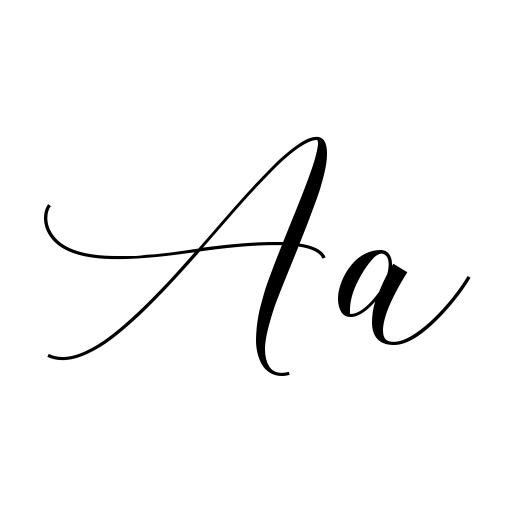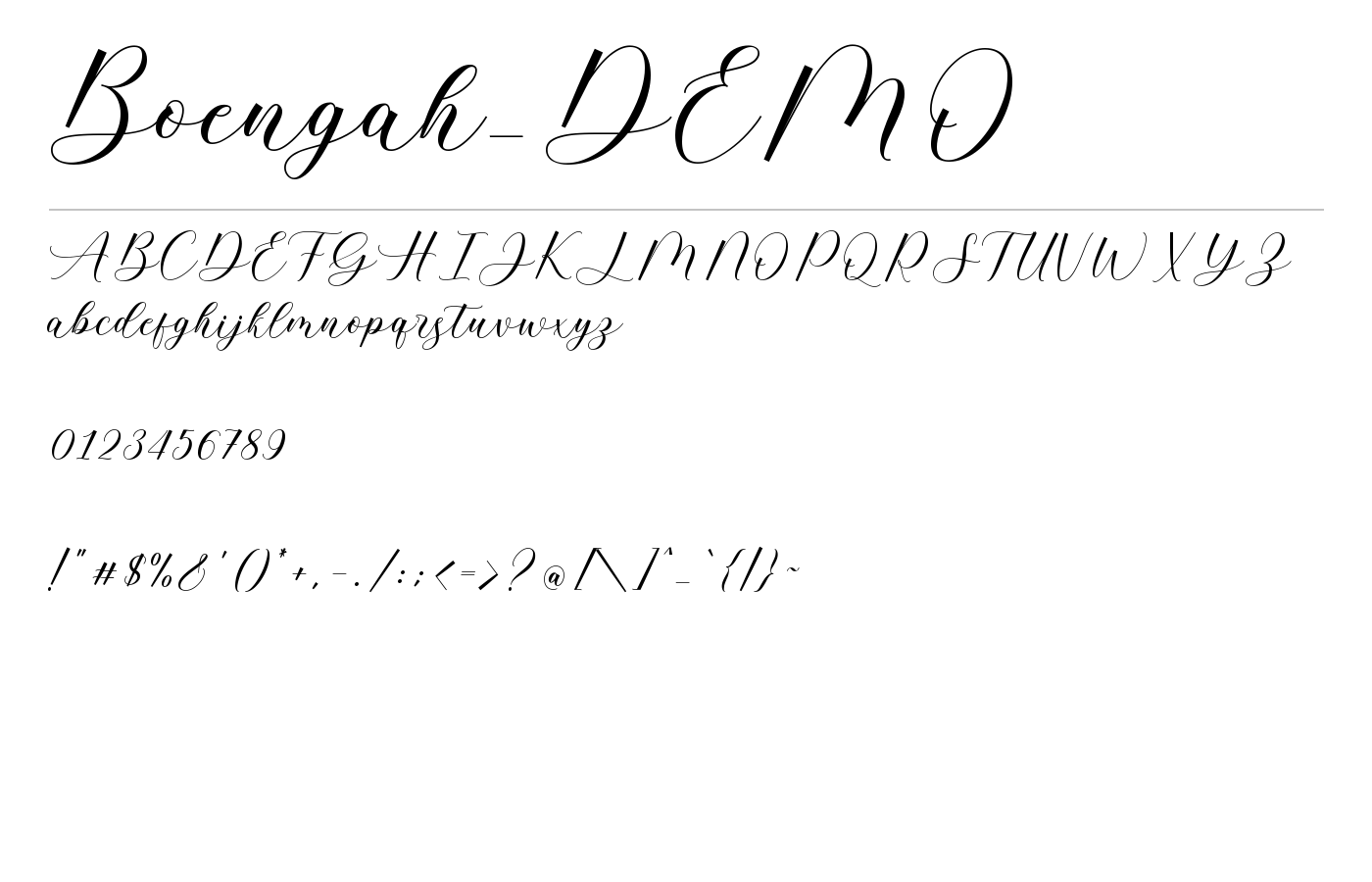
Boengah_DEMO is a delicate and elegant script font with a stylish, handcrafted feel. Its thin strokes and graceful curves give it a refined and sophisticated look, making it perfect for invitations, branding, and any design needing a touch of elegance and charm. This font works beautifully in contexts where a personal, artistic, and feminine vibe is desired.
Boengah_DEMO Font
About Boengah_DEMO Font